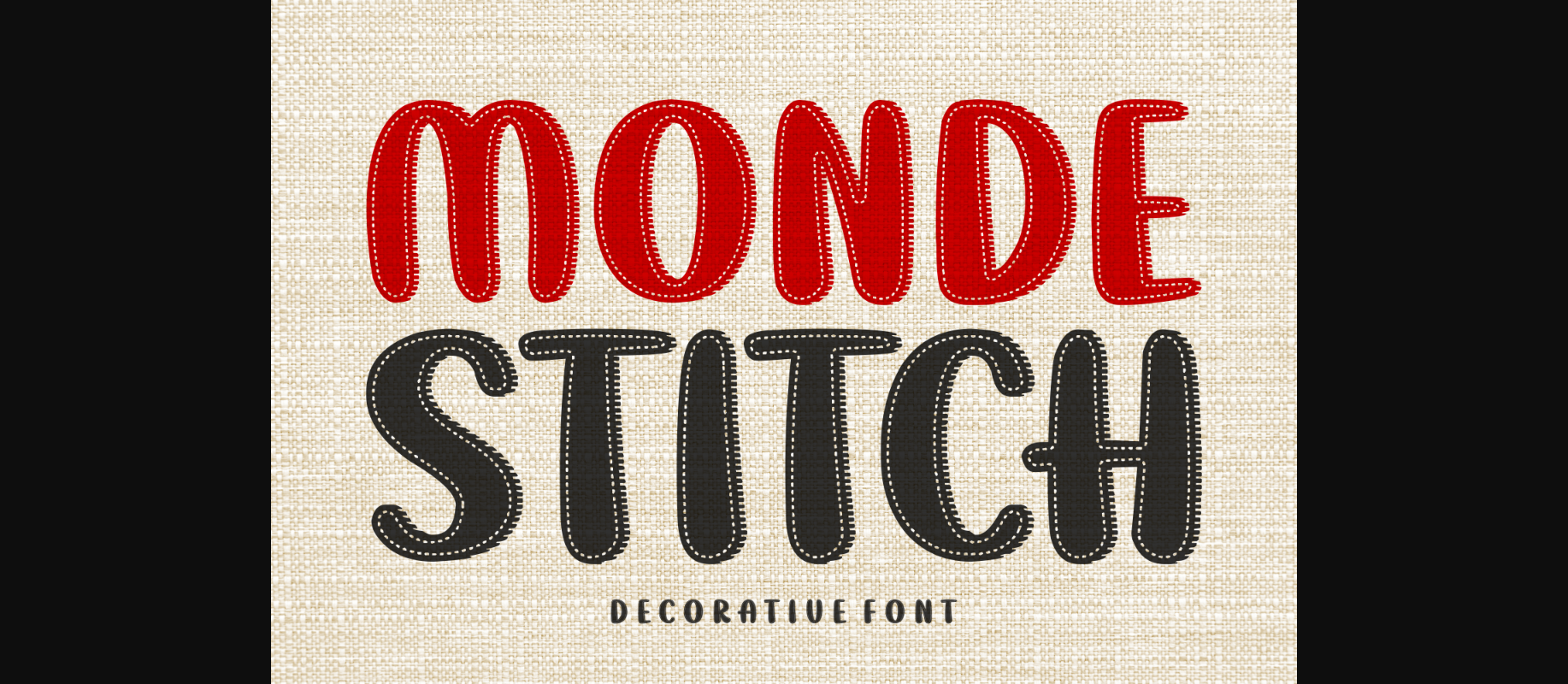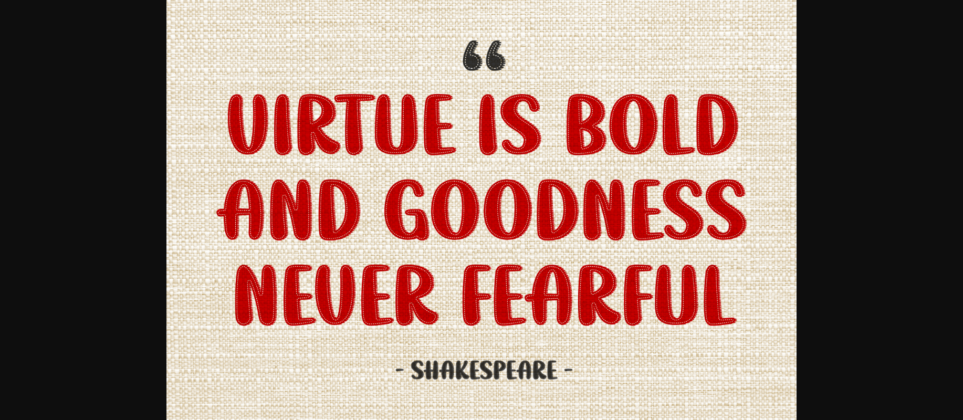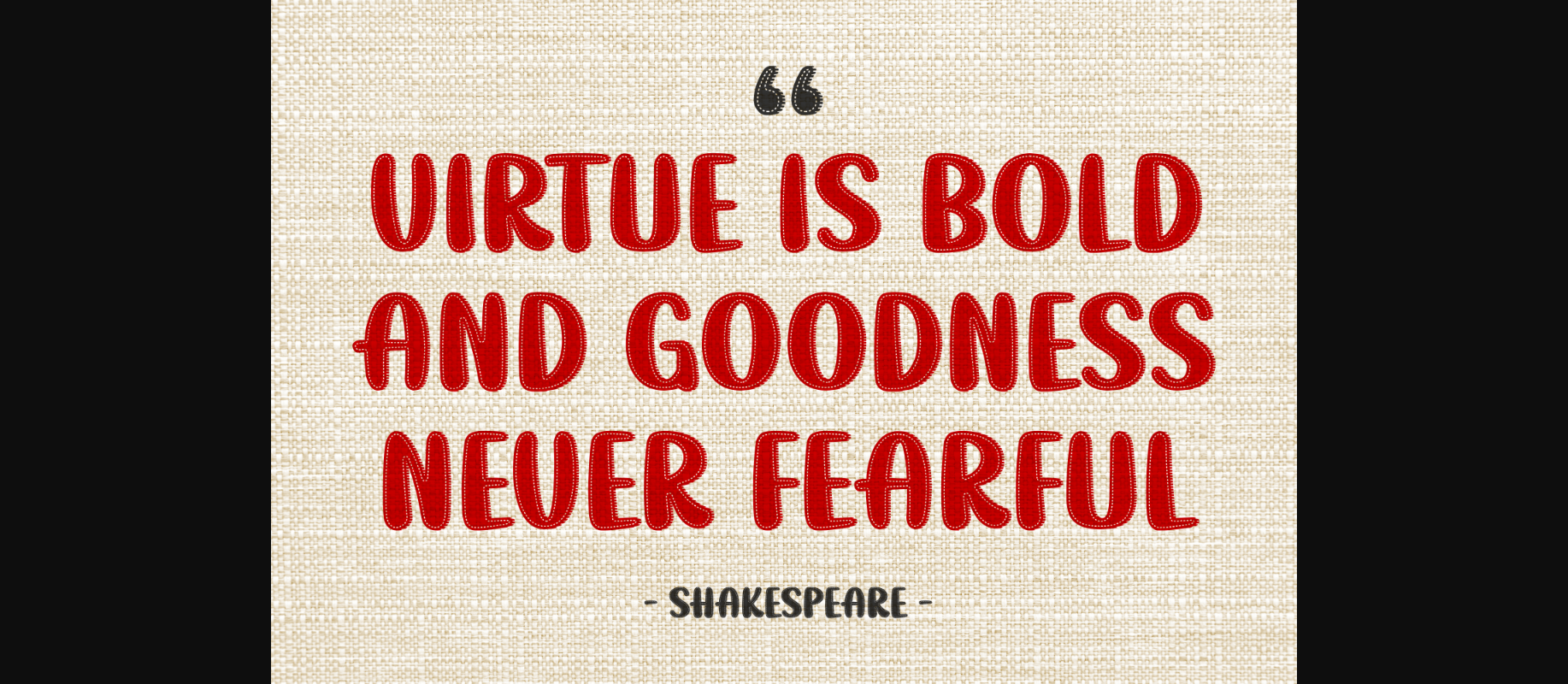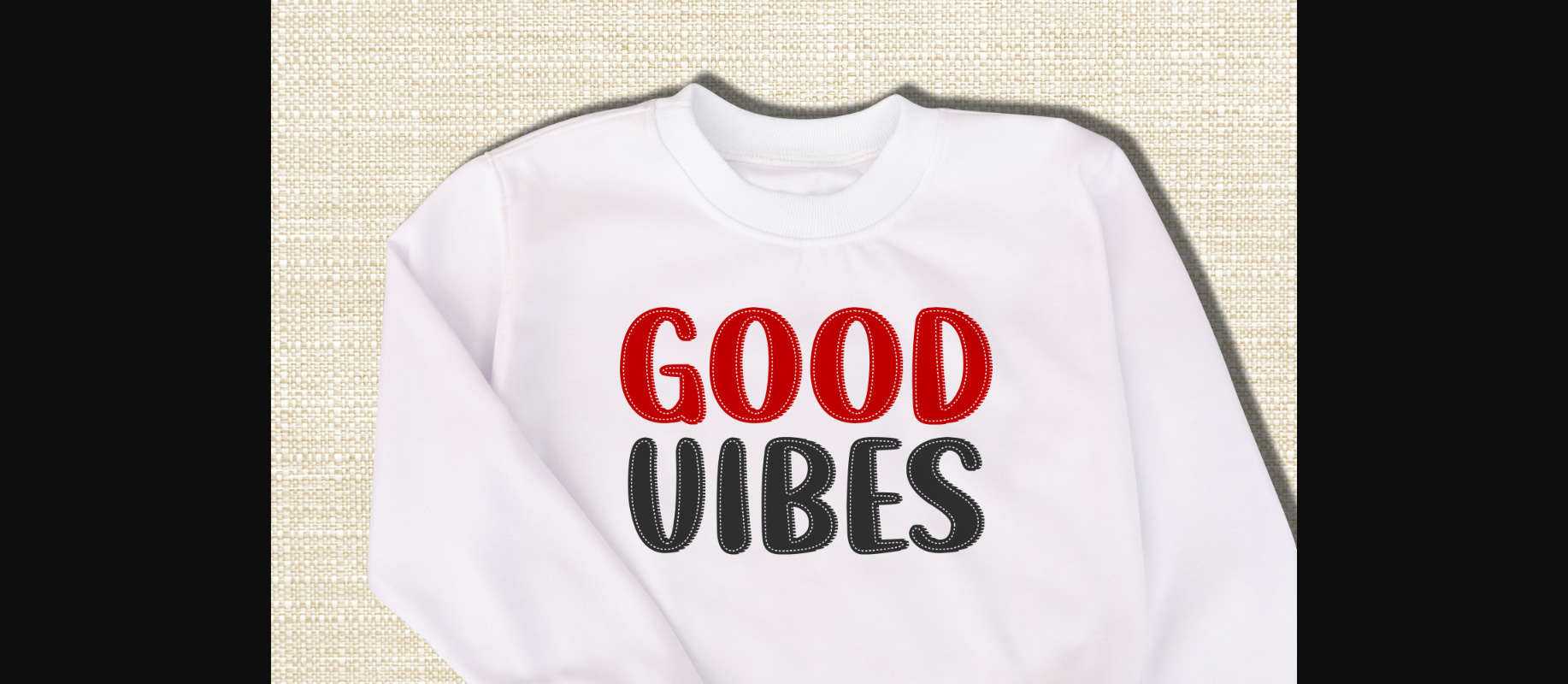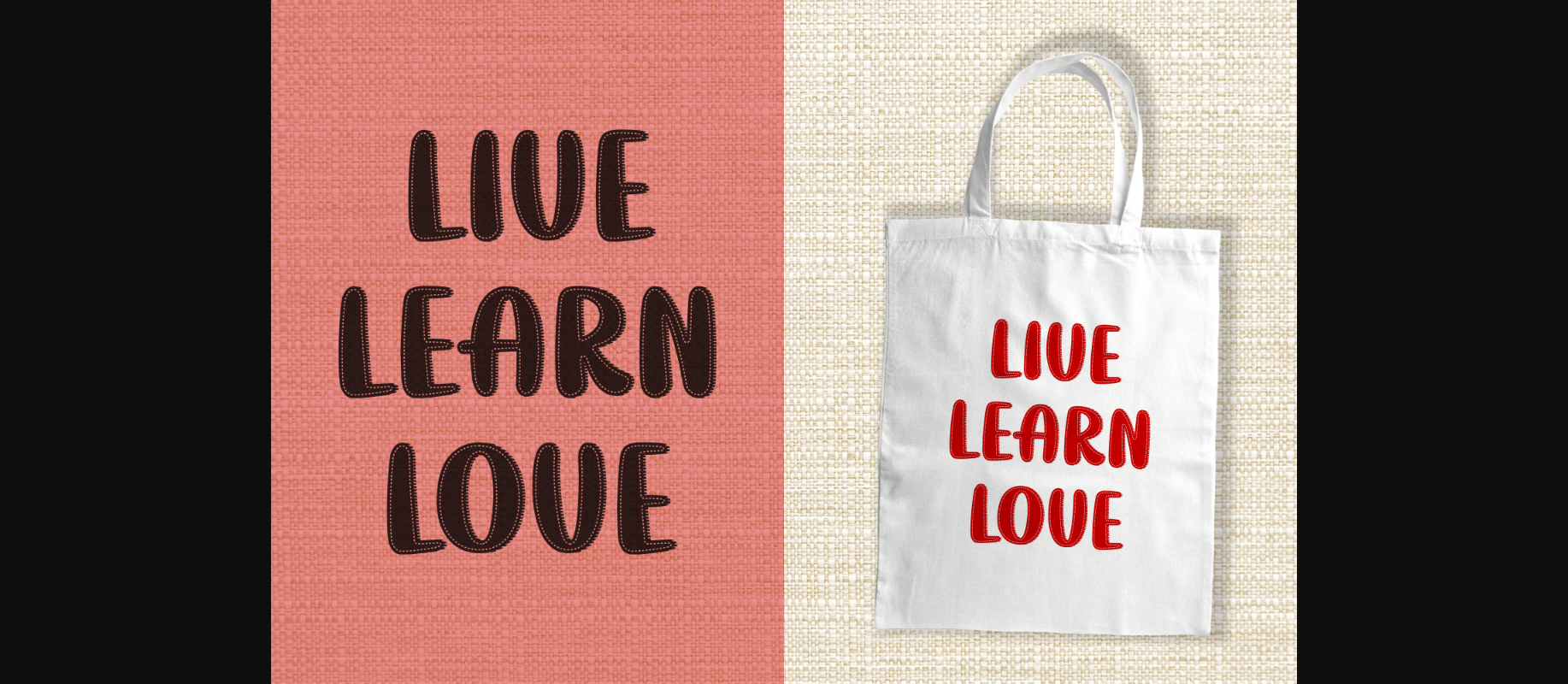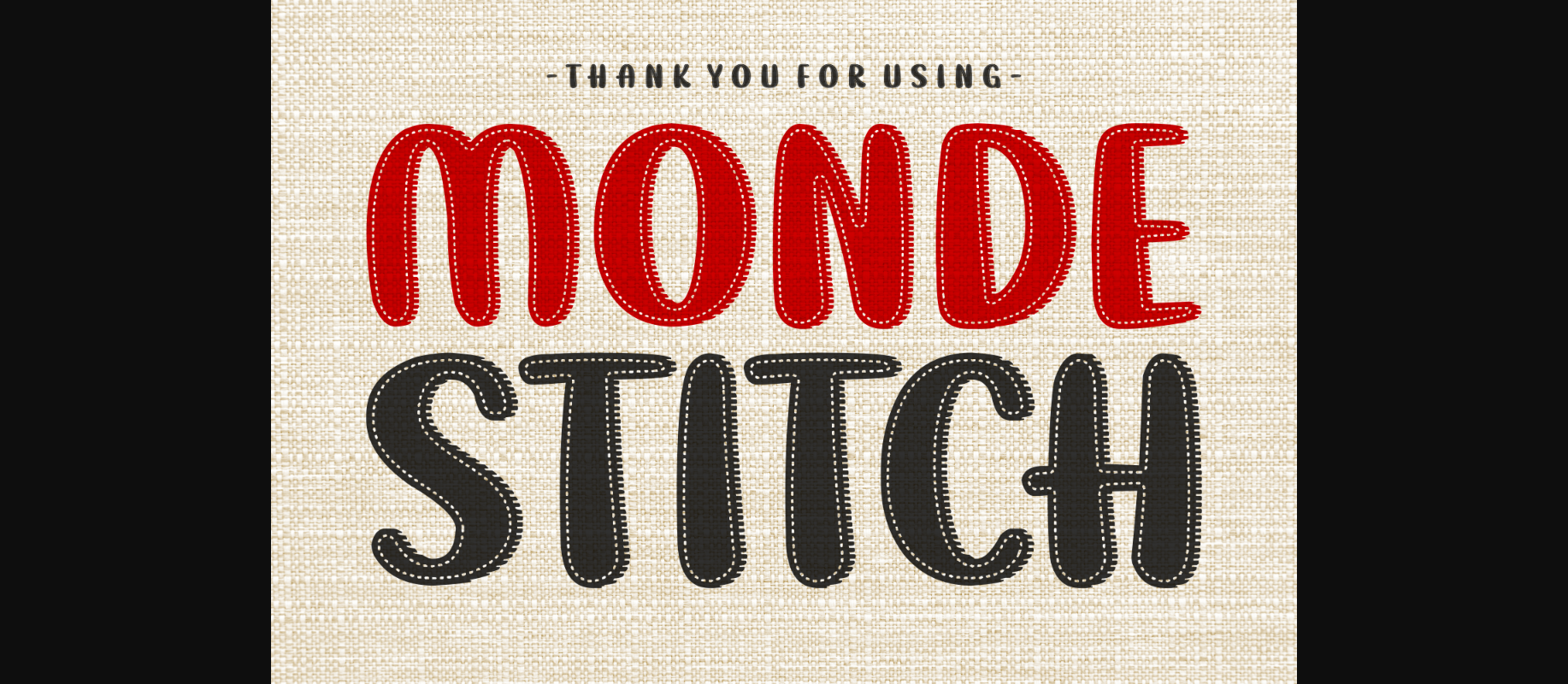
Monde Stitch Font
About Monde Stitch Font
Monde Stitch is a fun and decorative font that brings a touch of sewing magic to your letters. With a charming design reminiscent of stitches, this font adds a playful and crafty vibe to your projects. Perfect for adding a handmade touch to your designs, Monde Stitch is a delightful choice for anyone looking to infuse a bit of whimsy into their text.